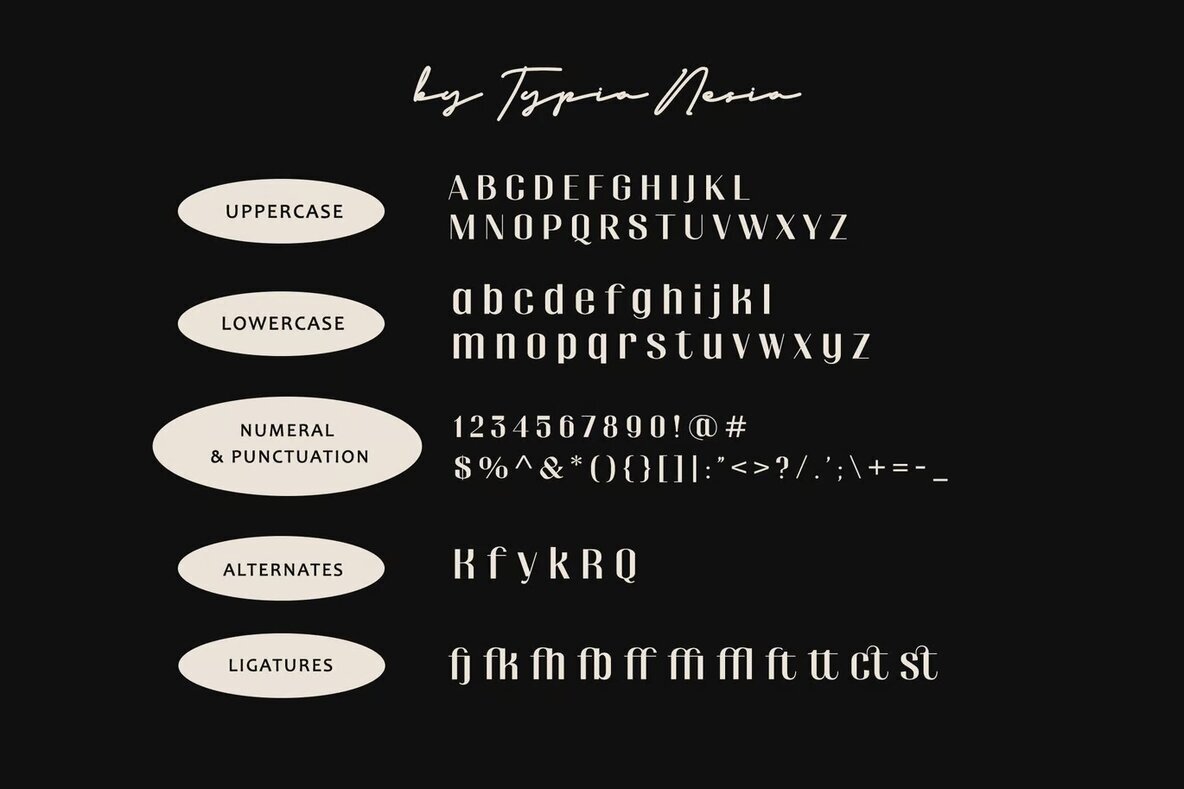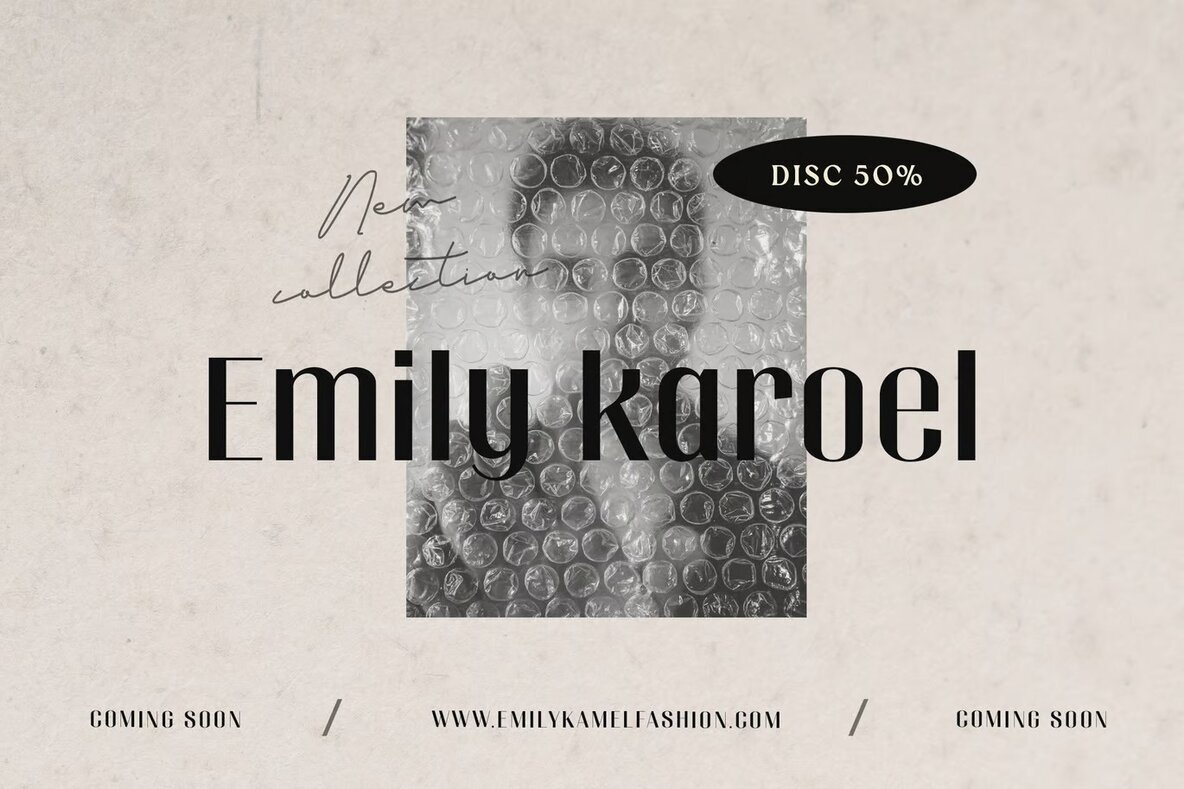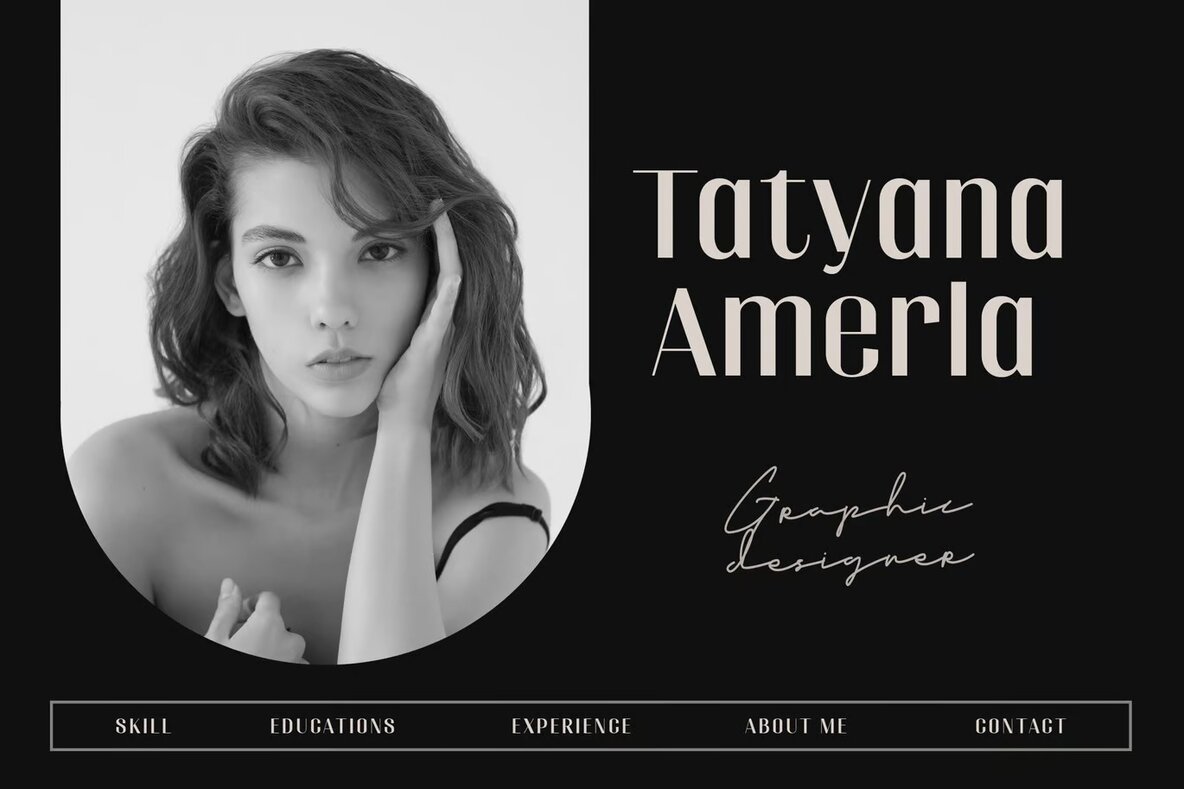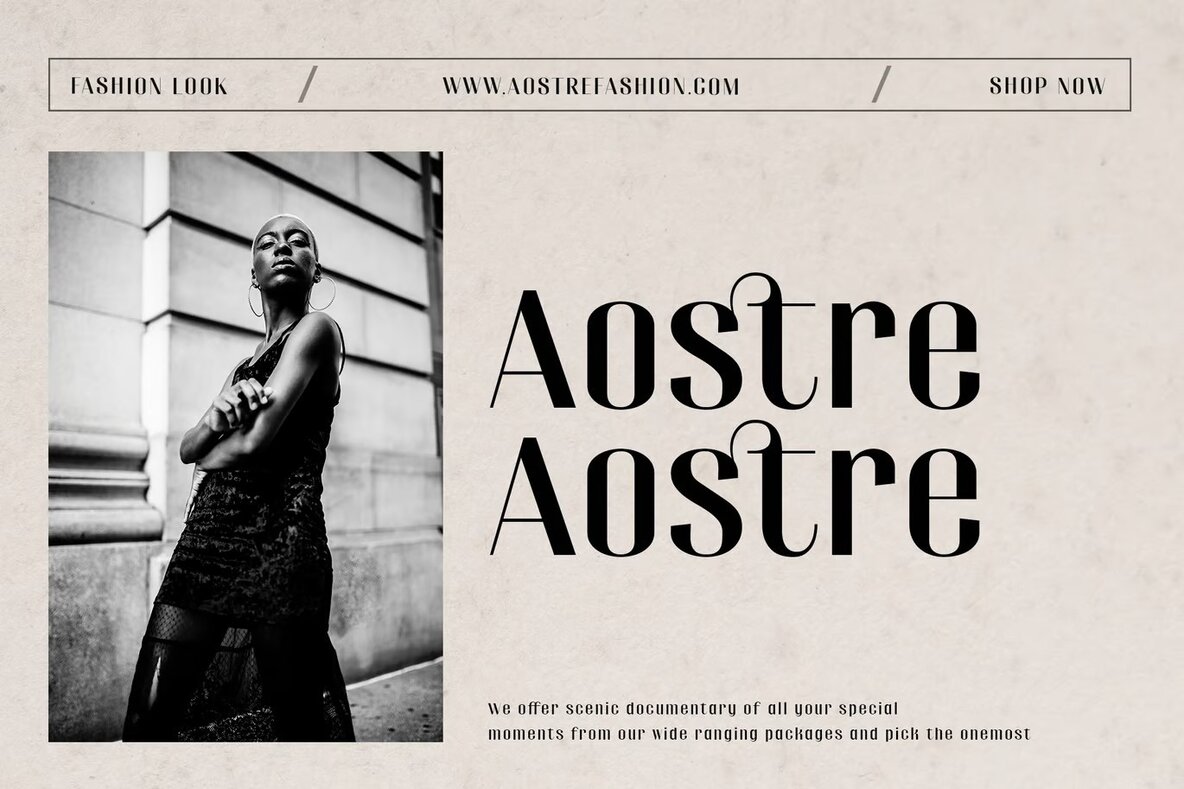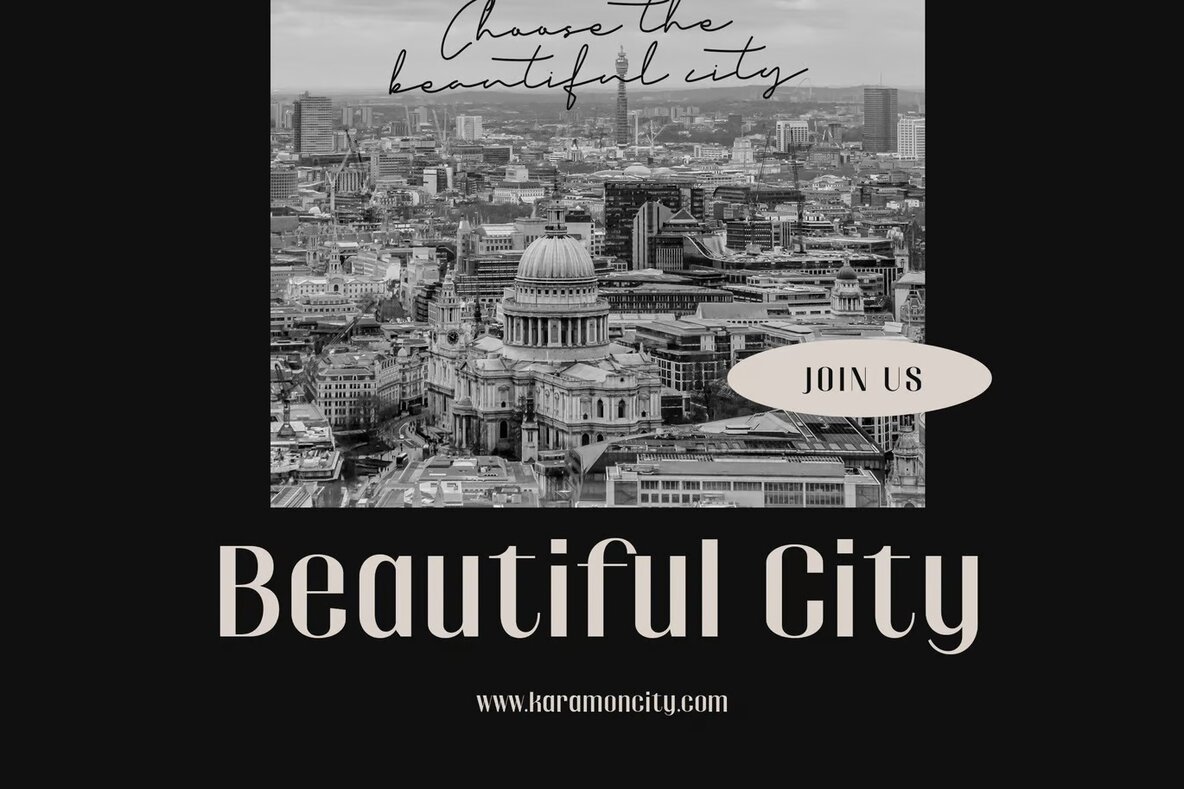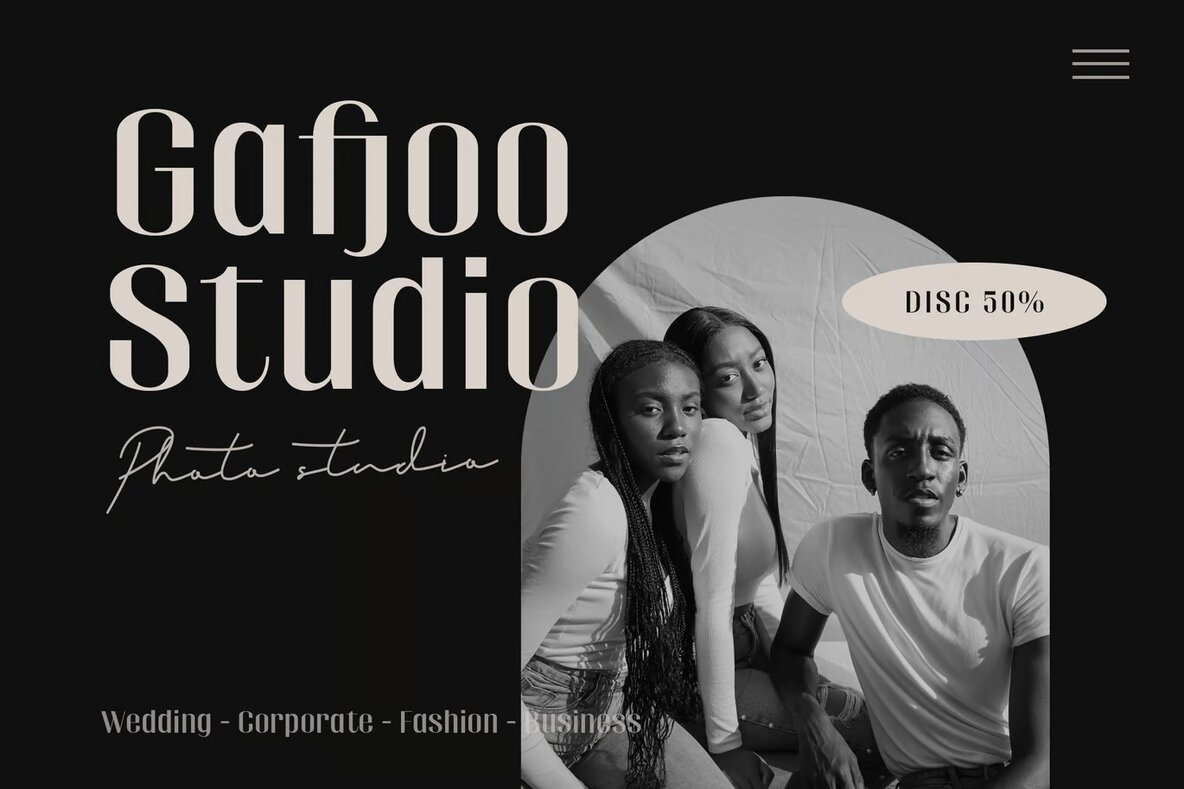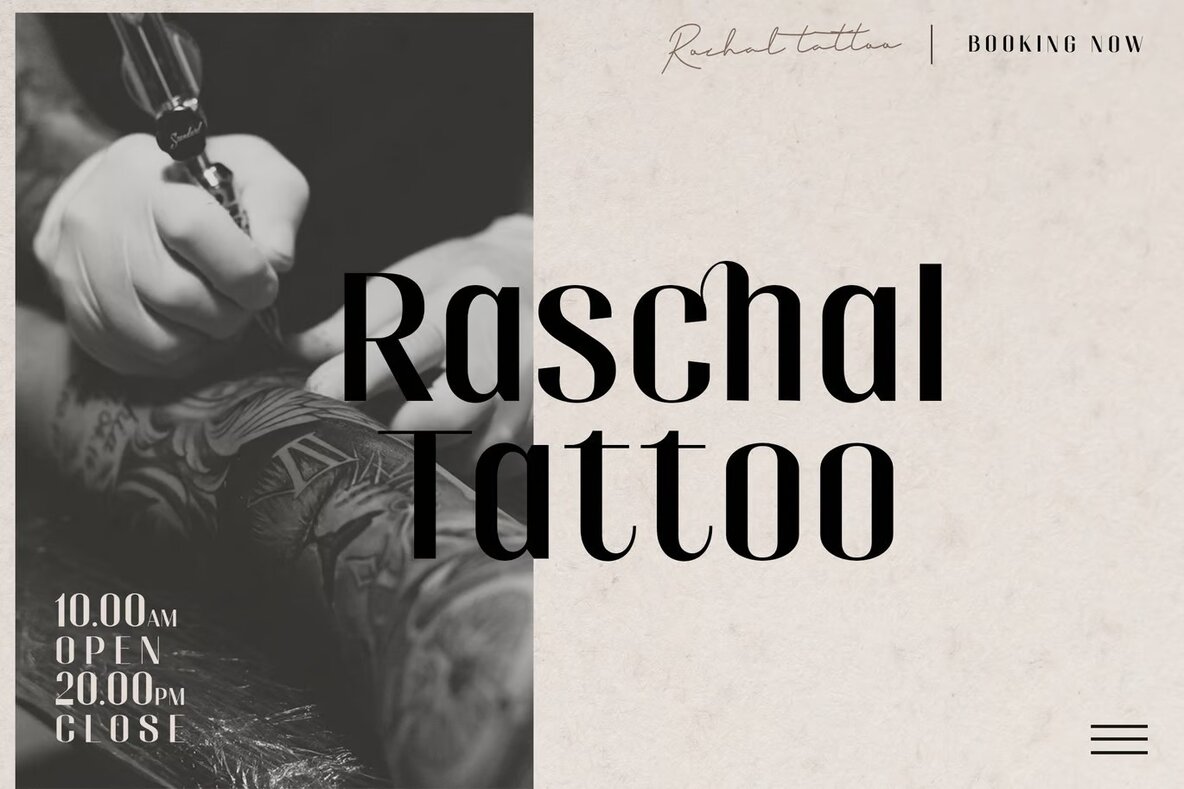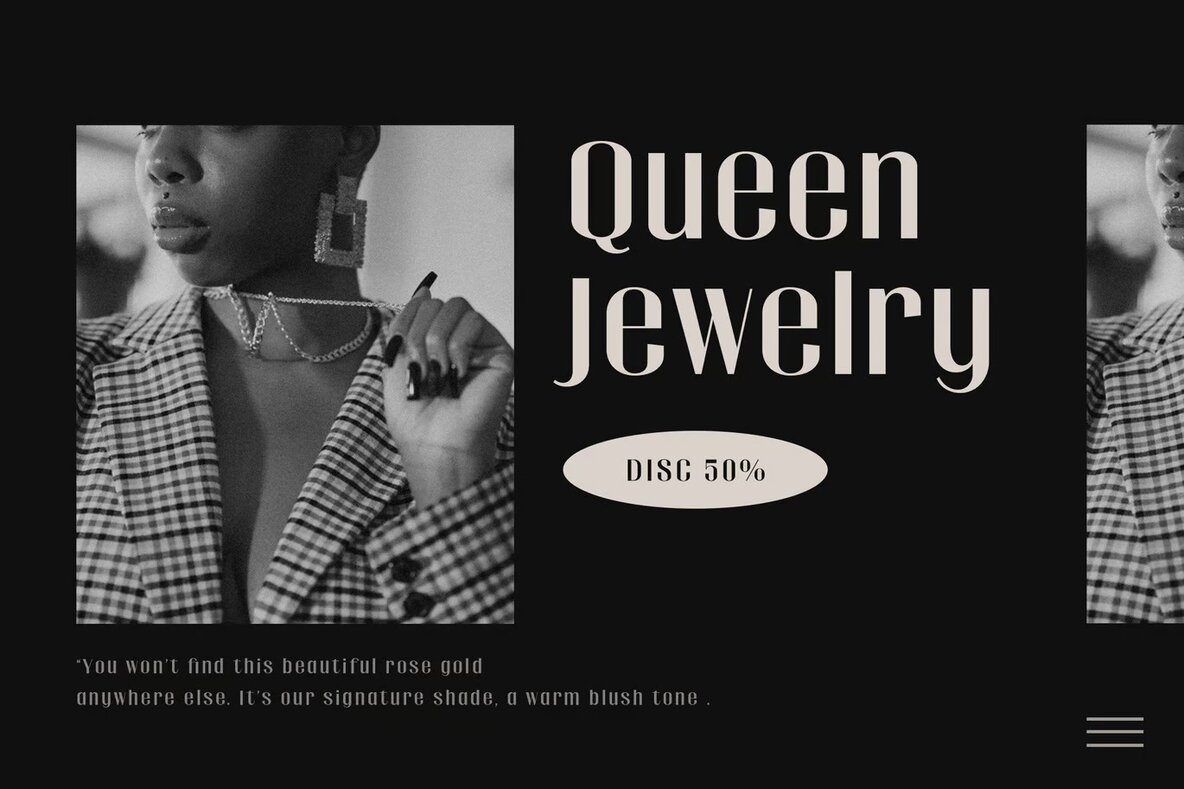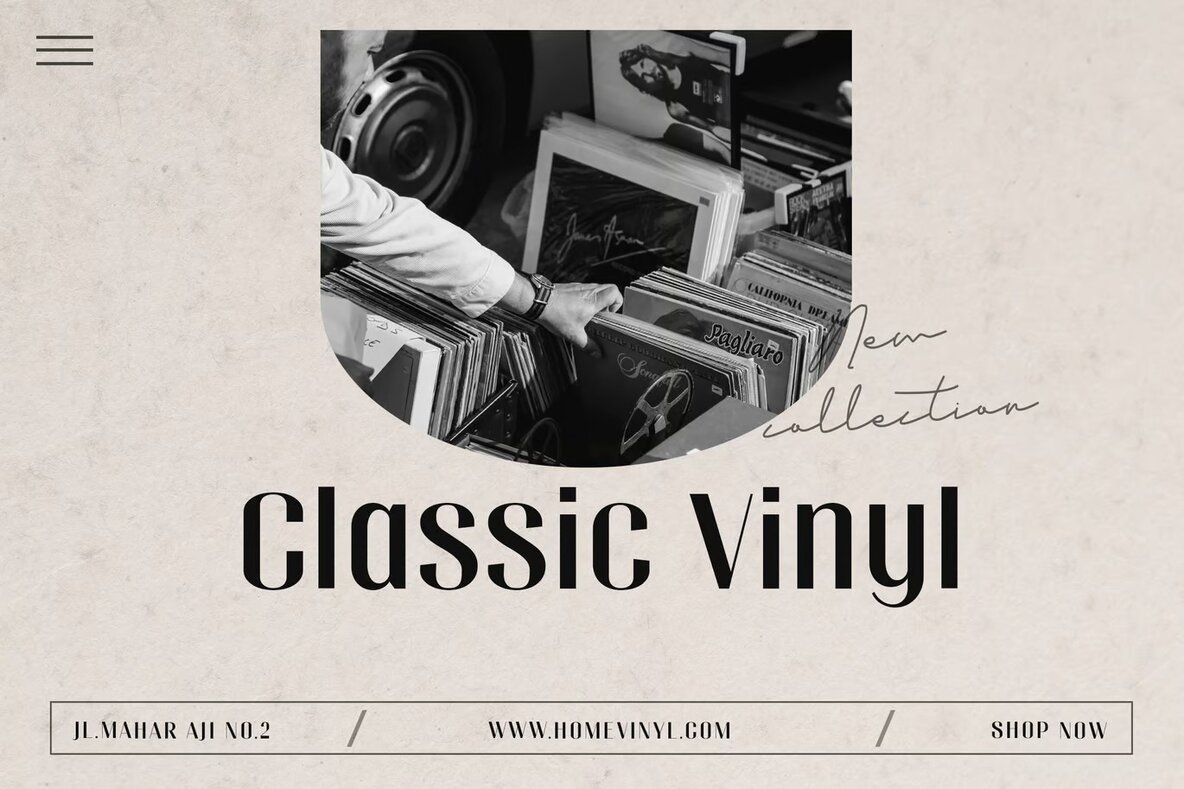
Renkiest Font
Renkiest Regular
Renkiest Sans Serif Display Font merges retro vintage aesthetics with classic boldness, making it an ideal choice for a range of creative projects. Its timeless design lends itself well to luxury logos and branding concepts, ensuring that your work stands out with a touch of sophistication. Whether you're crafting a classy editorial layout, designing for a fashion magazine, or developing a branding strategy for a cosmetic line, Renkiest provides the versatility and style needed to make a lasting impression.
Additionally, Renkiest suits artistic endeavors, such as museum or art gallery branding, historical and architectural projects, and boutique identity design. Its clean and bold sans serif structure enhances modern advertising designs, while maintaining the elegance needed for more traditional settings like book or cover titles. Perfect for invitations and home decor, Renkiest adds a stylish edge to special event promotions and art quotes. Offering a harmonious blend of retro charm and modern appeal, this font enhances both digital and print media with ease.